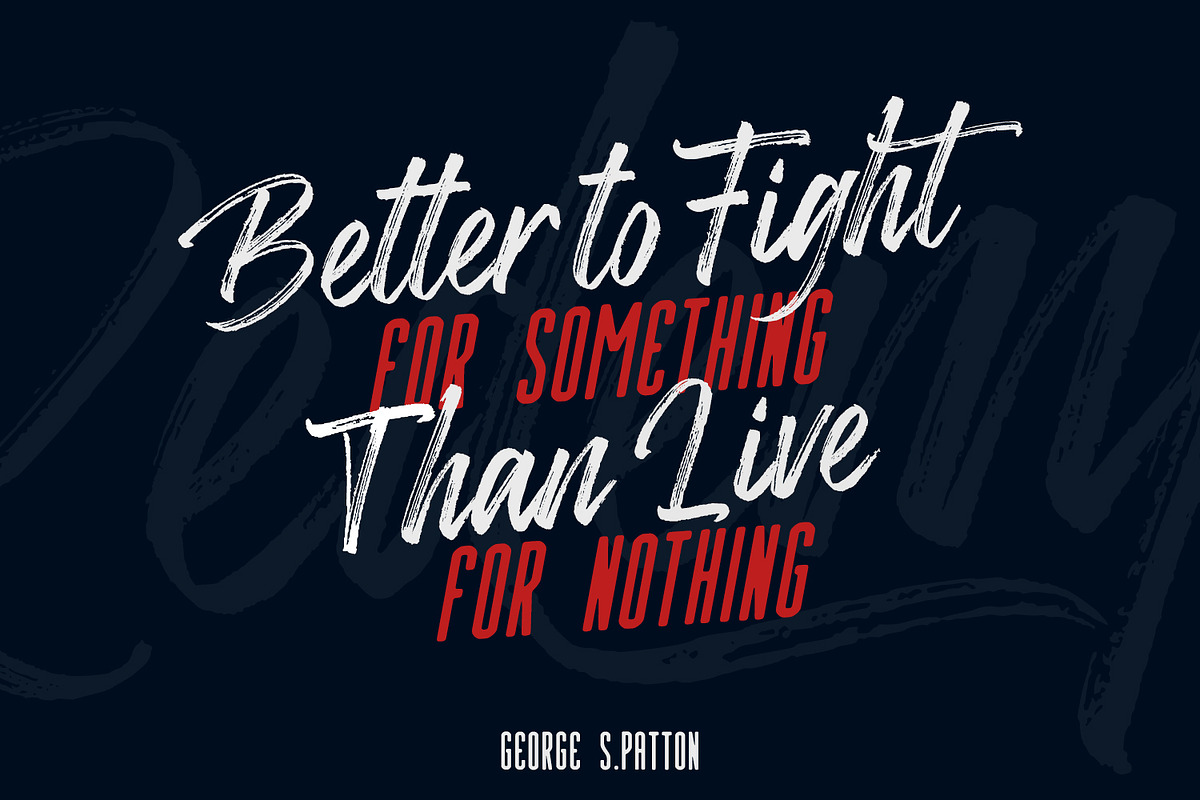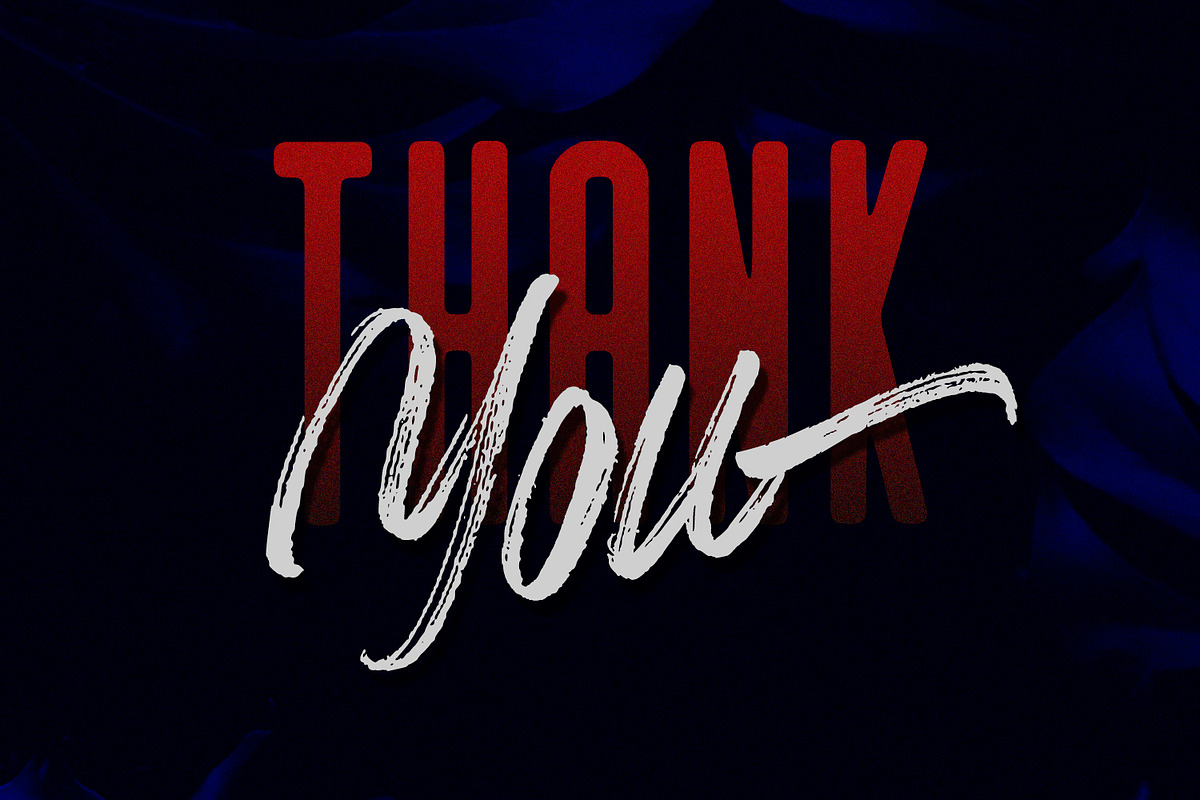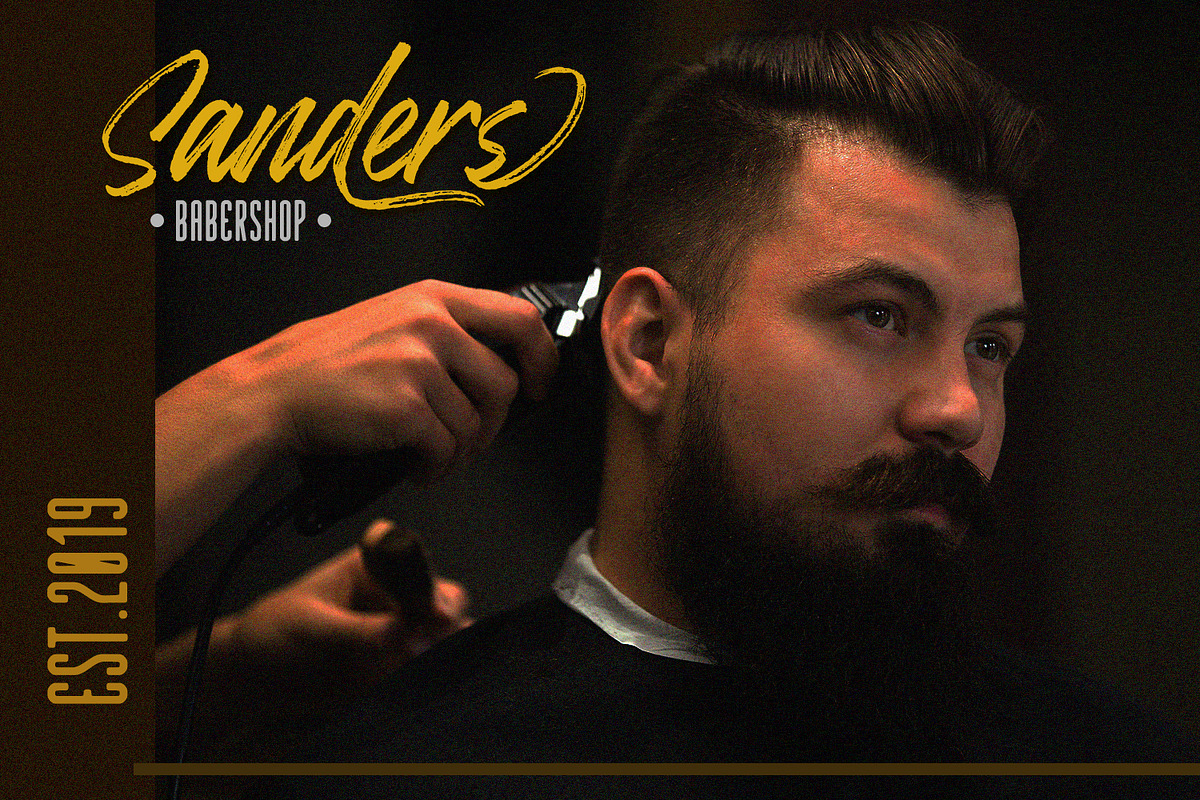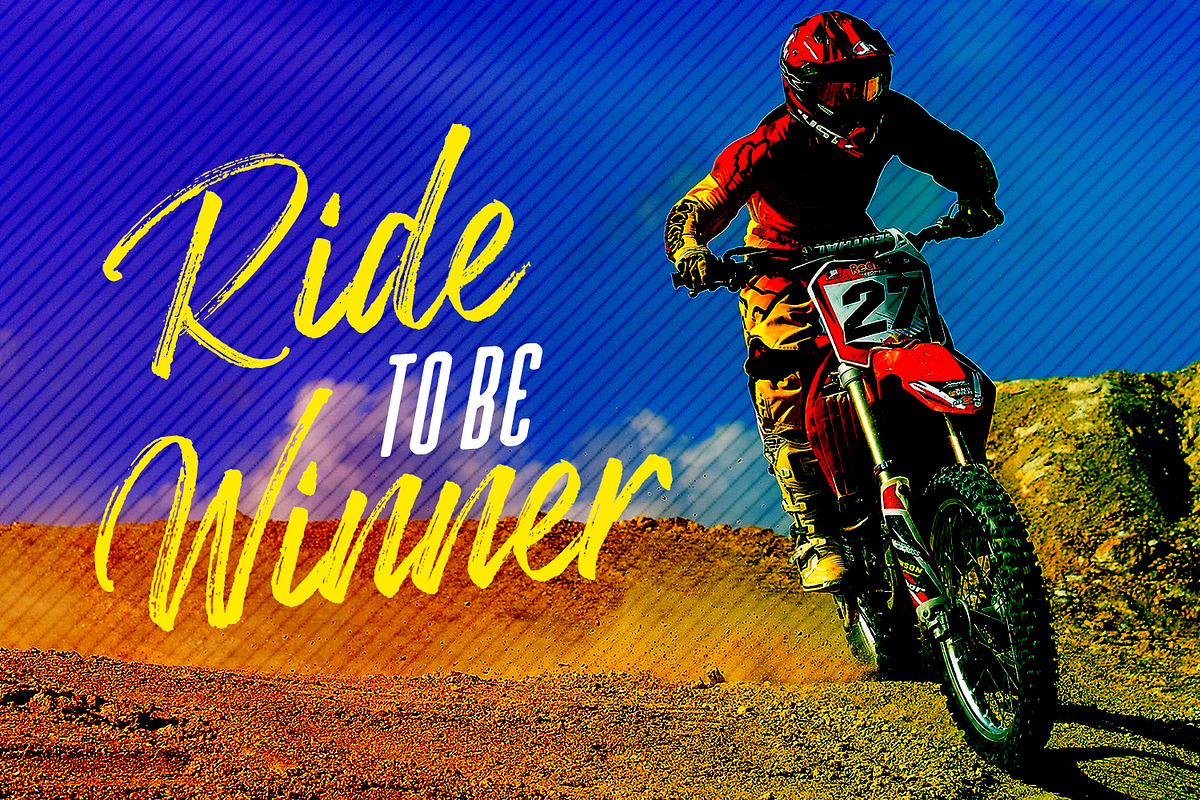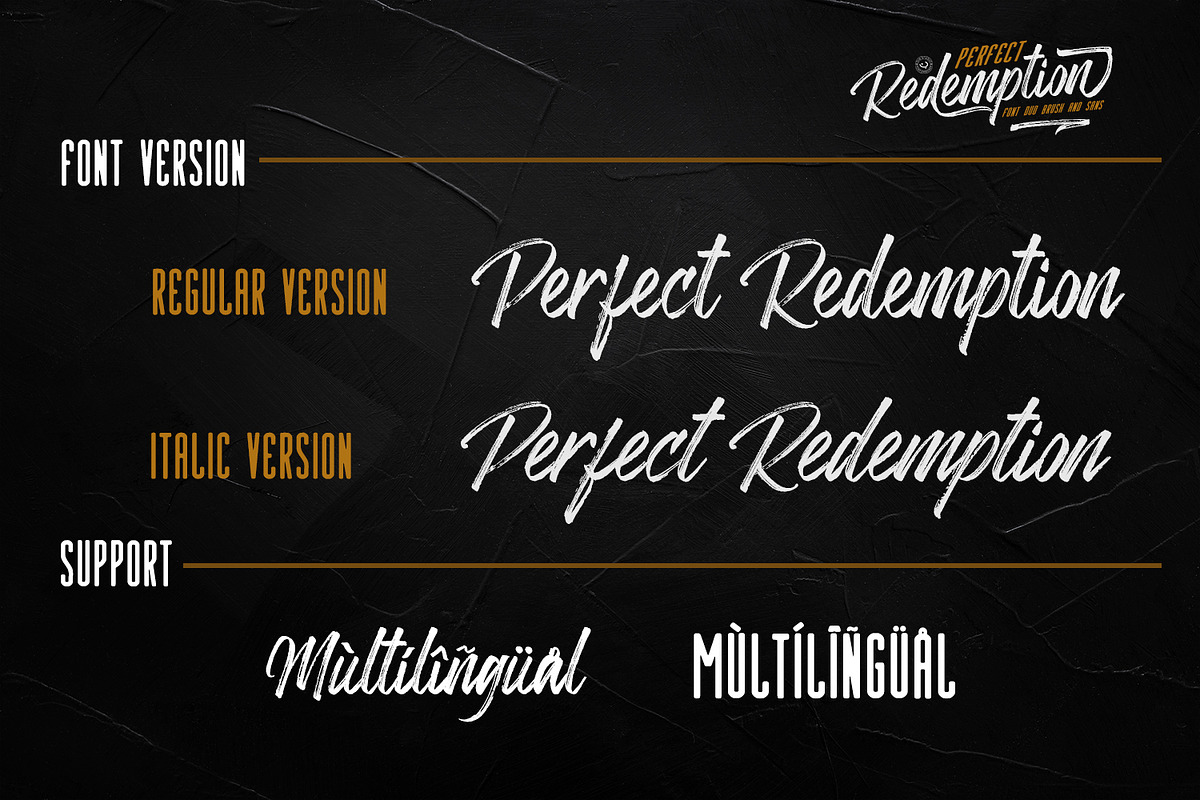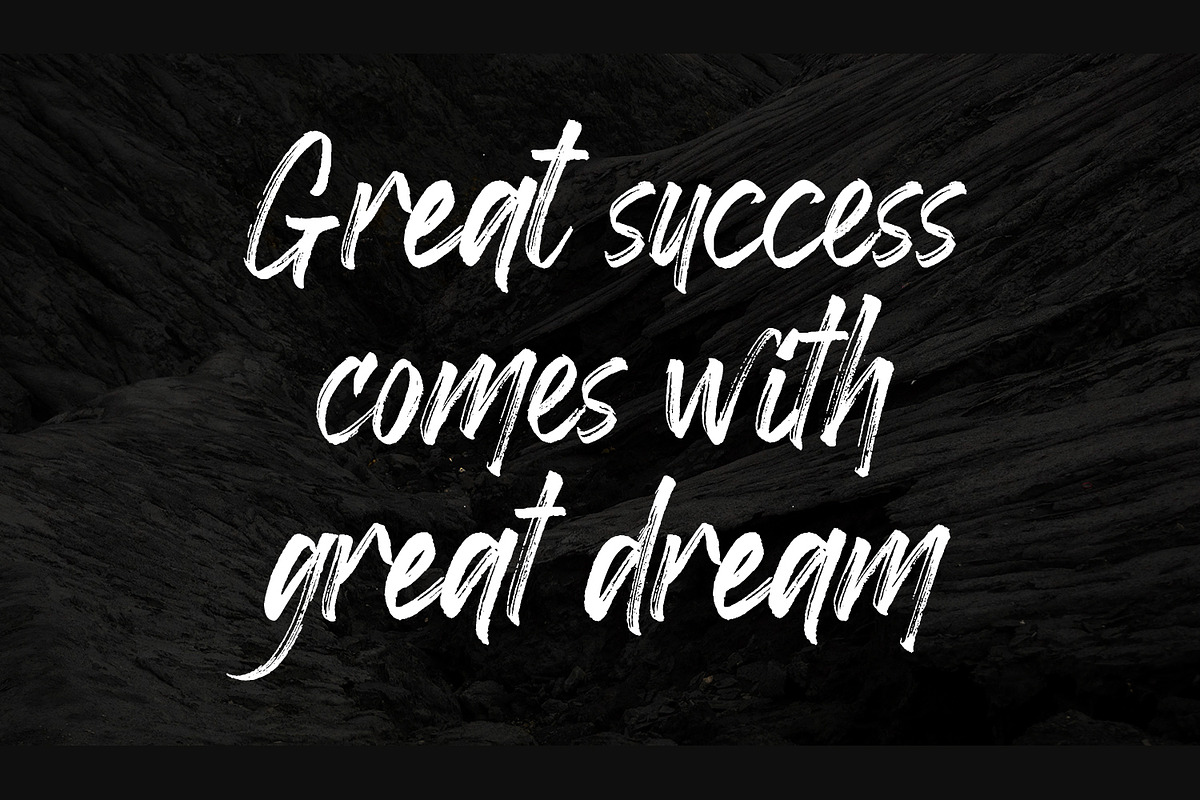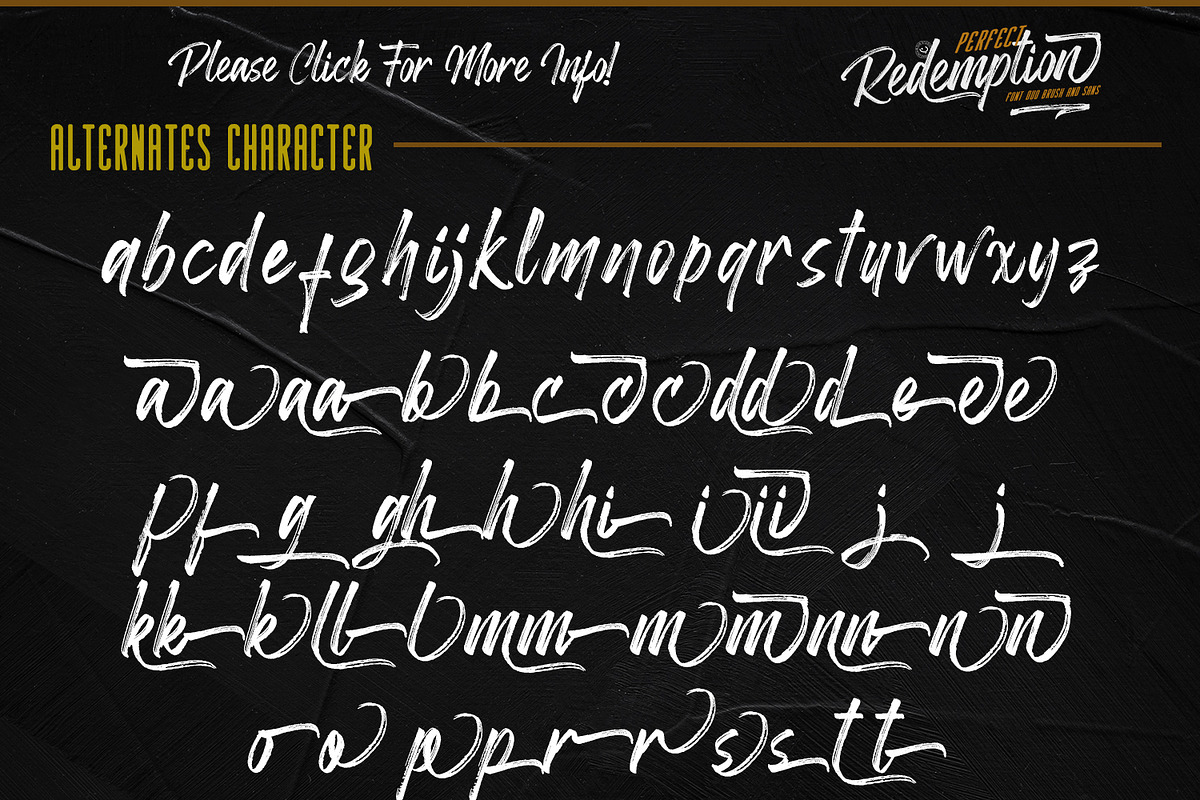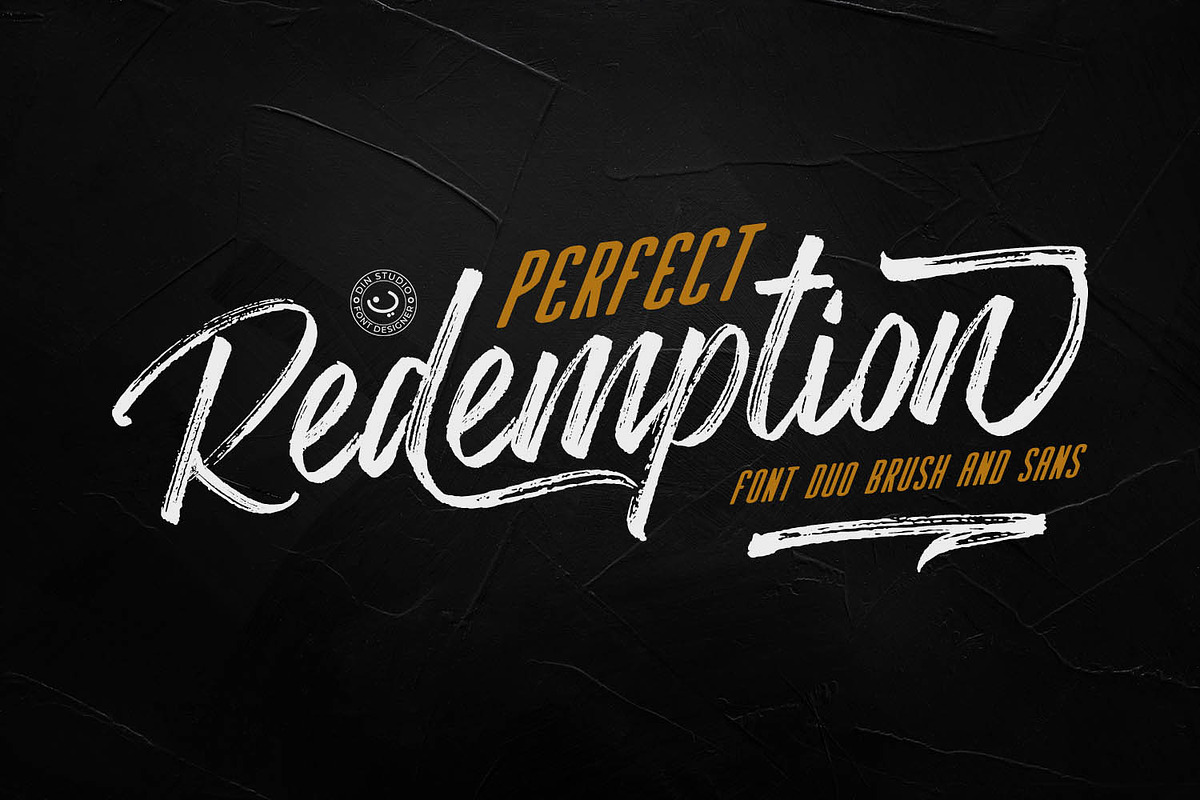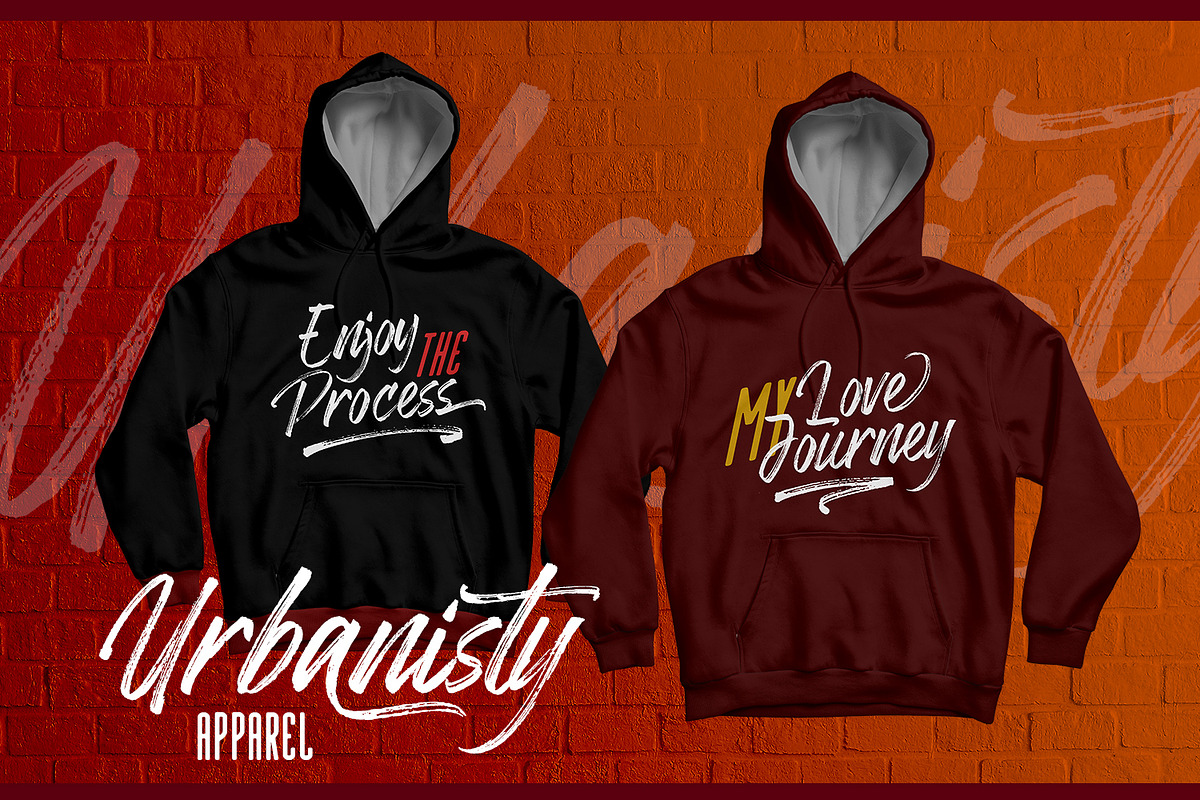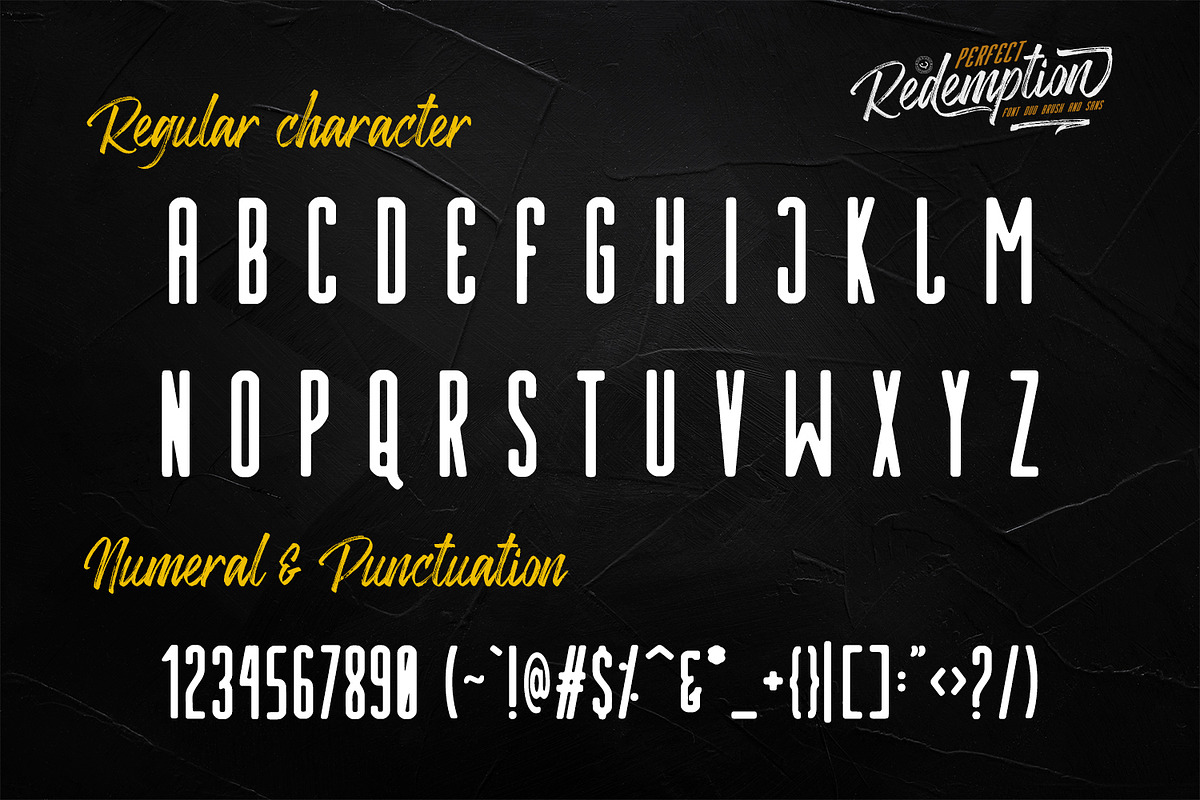
Perfect Redemption - Font Duo+Extras
Introducing Perfect Redemption- Font Duo. Perfect Redemption is a brush font and combines with sans font. Made with naturally brush. The texture from the brush font will make your design more beautiful and powerful. This font is suitable for any design like branding, quotes, t-shirt printing and etc.
- 64 Alternates
- 50 Extra Swashes
- Numerals and Punctuationss